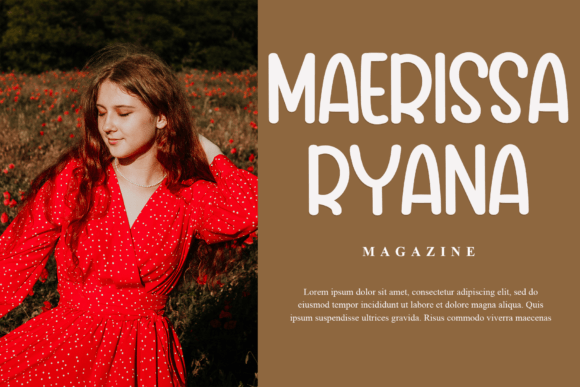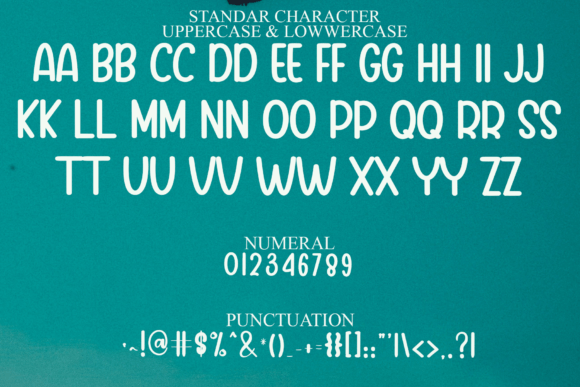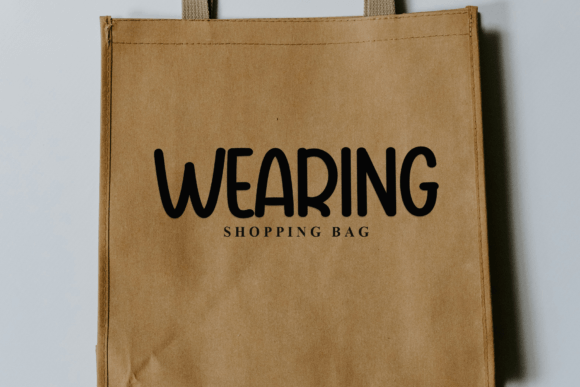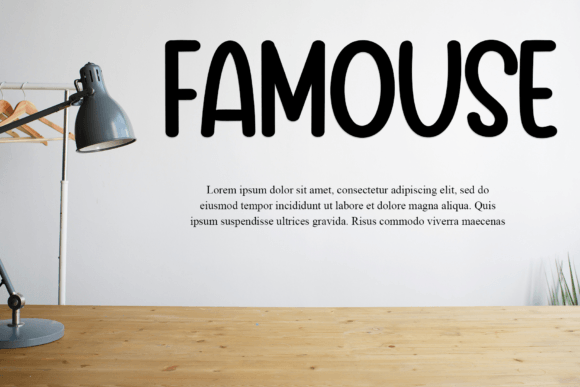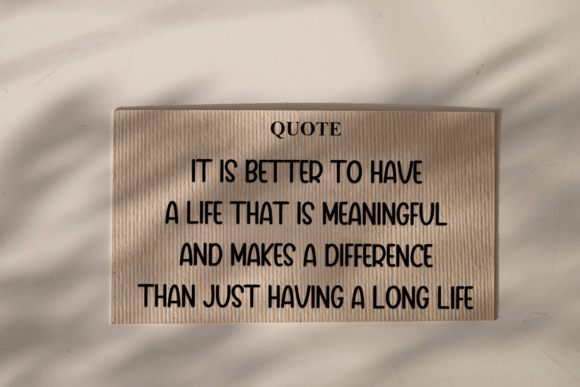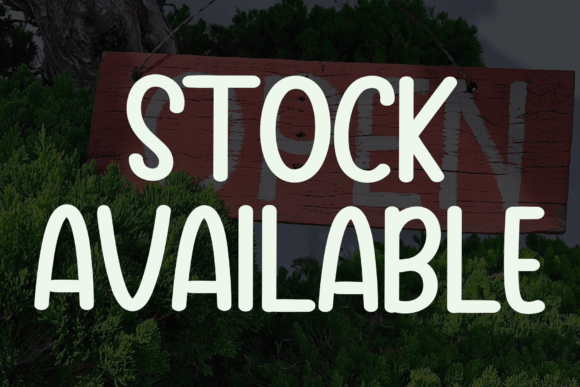
Unleashing Your Creativity with the Perfect Font
Have you ever stared at a blank page, pencil in hand, trying to conjure up the perfect phrase to express your artistic vision? The words dance in your mind, but the right font seems elusive. That’s where the Available Font comes in – a beautiful, refined handwritten font that brings elegance and sophistication to any design.
With its modern look and PUA encoded capabilities, the Available Font is a valuable tool for designers looking to elevate their work. From logos and branding to invitations and social media posts, this font is the perfect addition to any creative project. Its versatility and range of glyphs and ligatures make it a must-have for anyone looking to add a touch of class to their designs.
Key Features of Available Font
- Unique Characteristics: Available Font features a unique blend of modern and classic design elements, including clean lines, geometric shapes, and subtle texture, making it an ideal choice for contemporary designs.
Available Font Review
Overall, I think the Available Font is a solid choice for designers, but it’s not without its limitations. Let’s start with what works well.
- ✨ The font’s versatility is another major advantage. It can be used for a wide range of applications, from digital displays to print materials.
- ✨ The font’s clean and modern design makes it a great choice for designers who want a sleek and professional look.
Now, let’s talk about some of the limitations.
- ⚠️ The font may not be suitable for high-end branding or luxury applications, as it may come across as too casual or generic.
- ⚠️ Some users may find the font’s lack of personality or distinctiveness to be a drawback.
- ⚠️ The font’s limited customization options may be a limitation for designers who want to tailor the font to their specific needs.
In conclusion, the Available Font is a reliable choice for designers who need a clean and versatile font. However, it may not be the best fit for high-end branding or applications where a unique, distinctive font is required.
Tips for Getting the Most Out of Available Font
Use Available Font to create visually appealing and professional-looking designs. Experiment with different font styles and sizes to find the perfect combination for your project.
Available Font is ideal for:
- Logo design and branding
- Website design and content creation